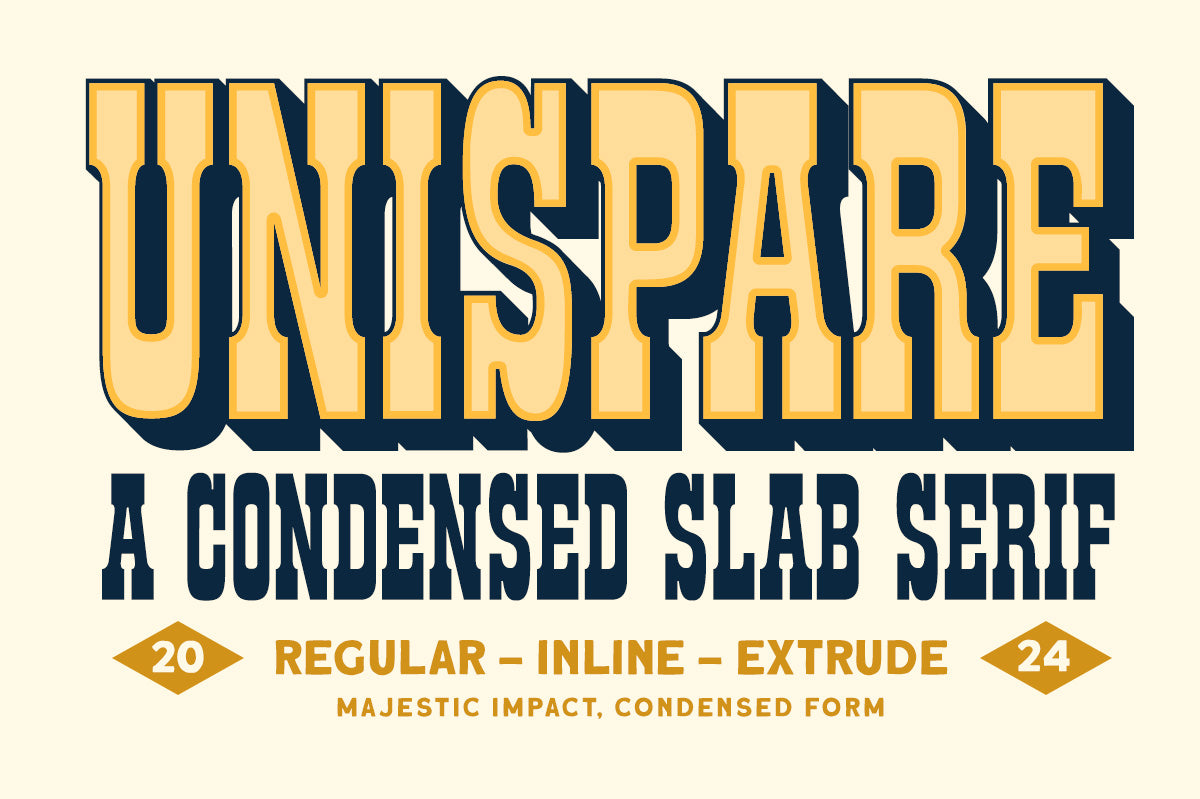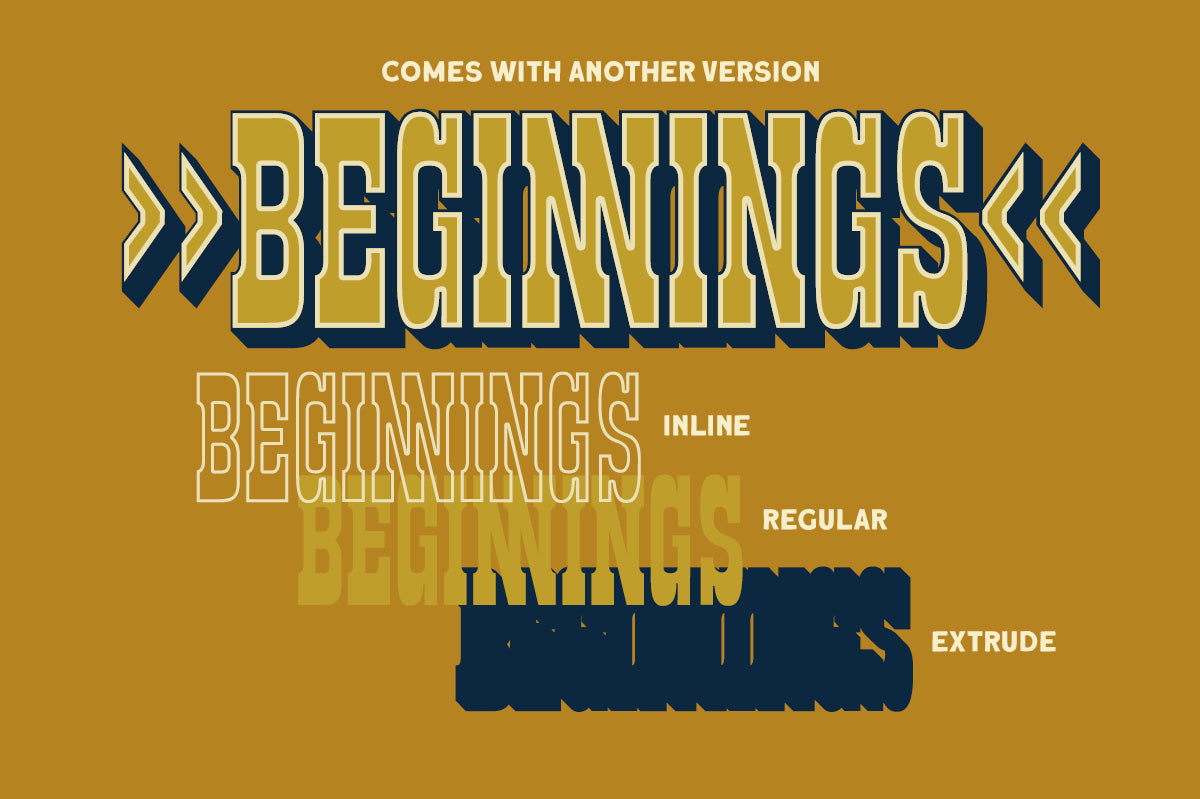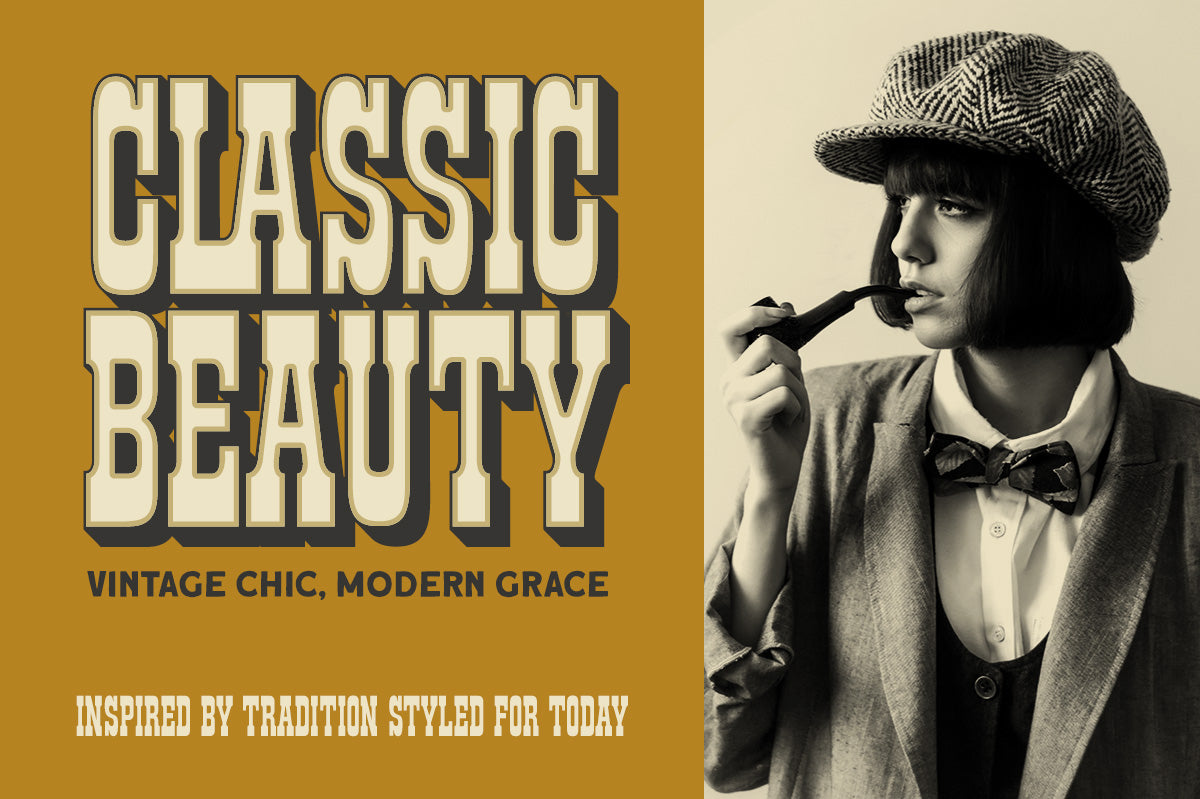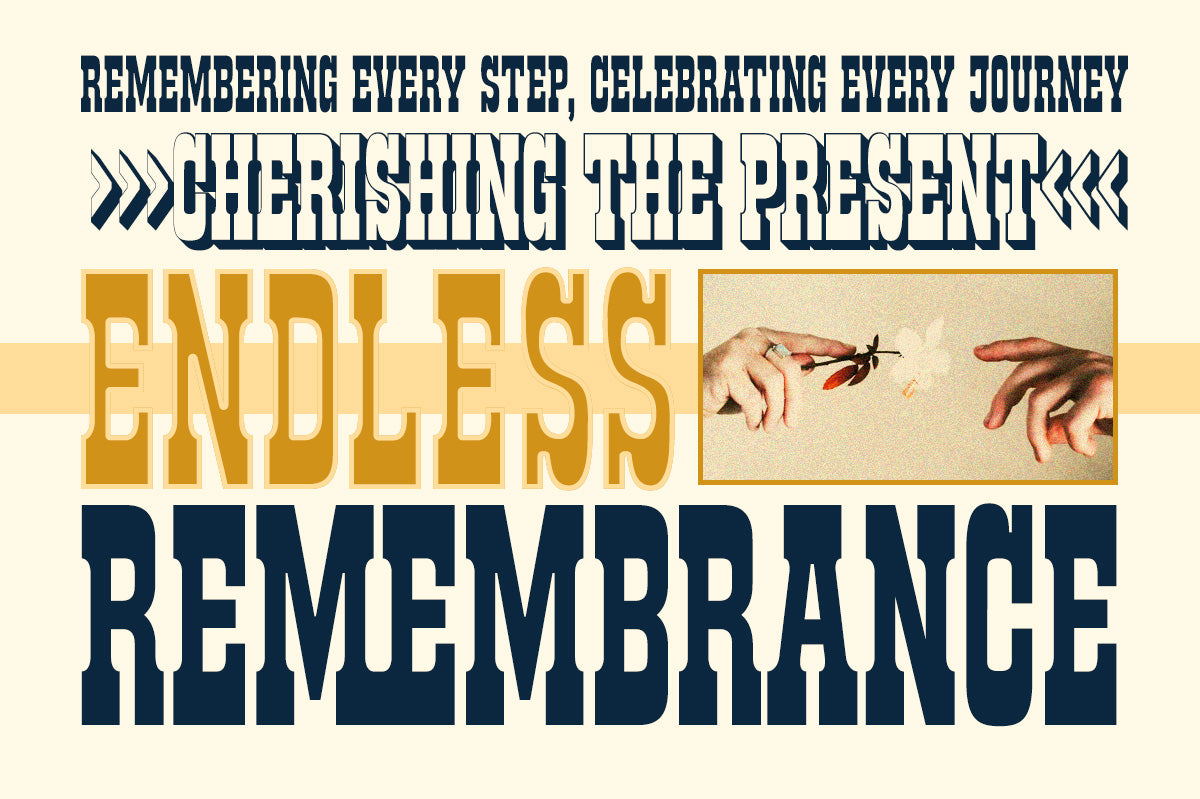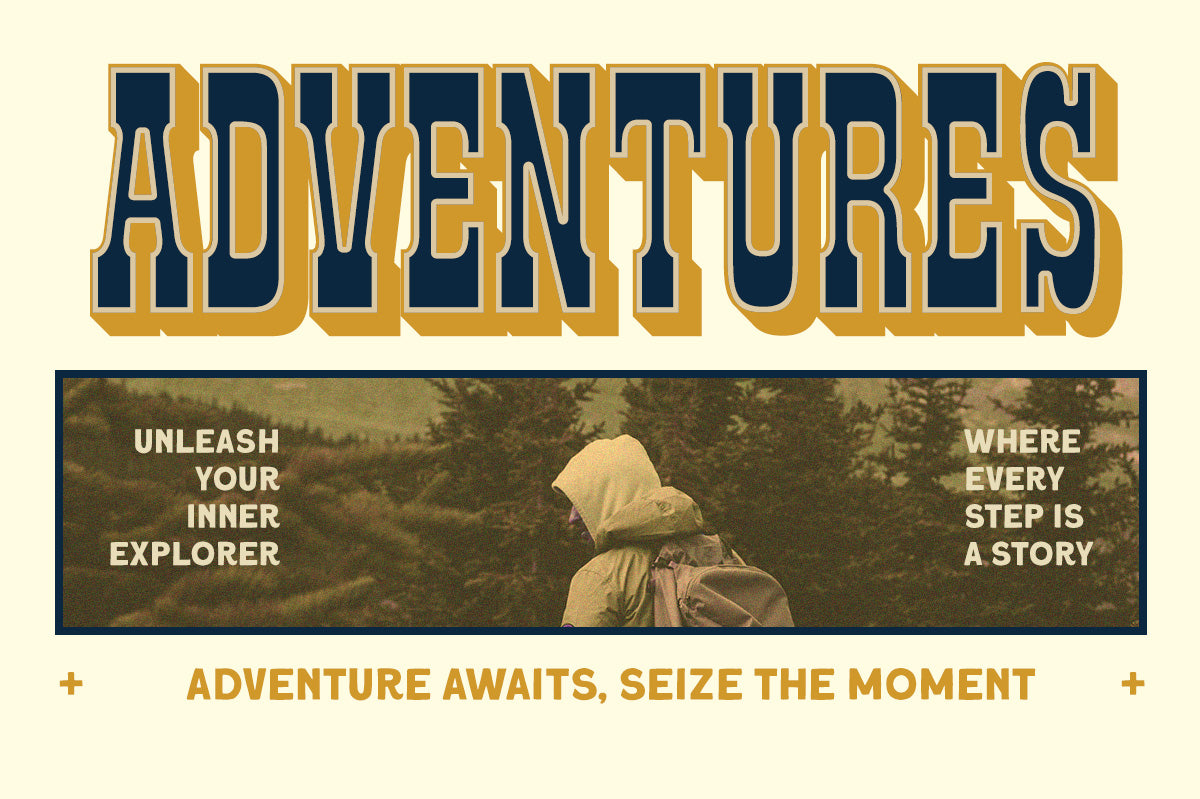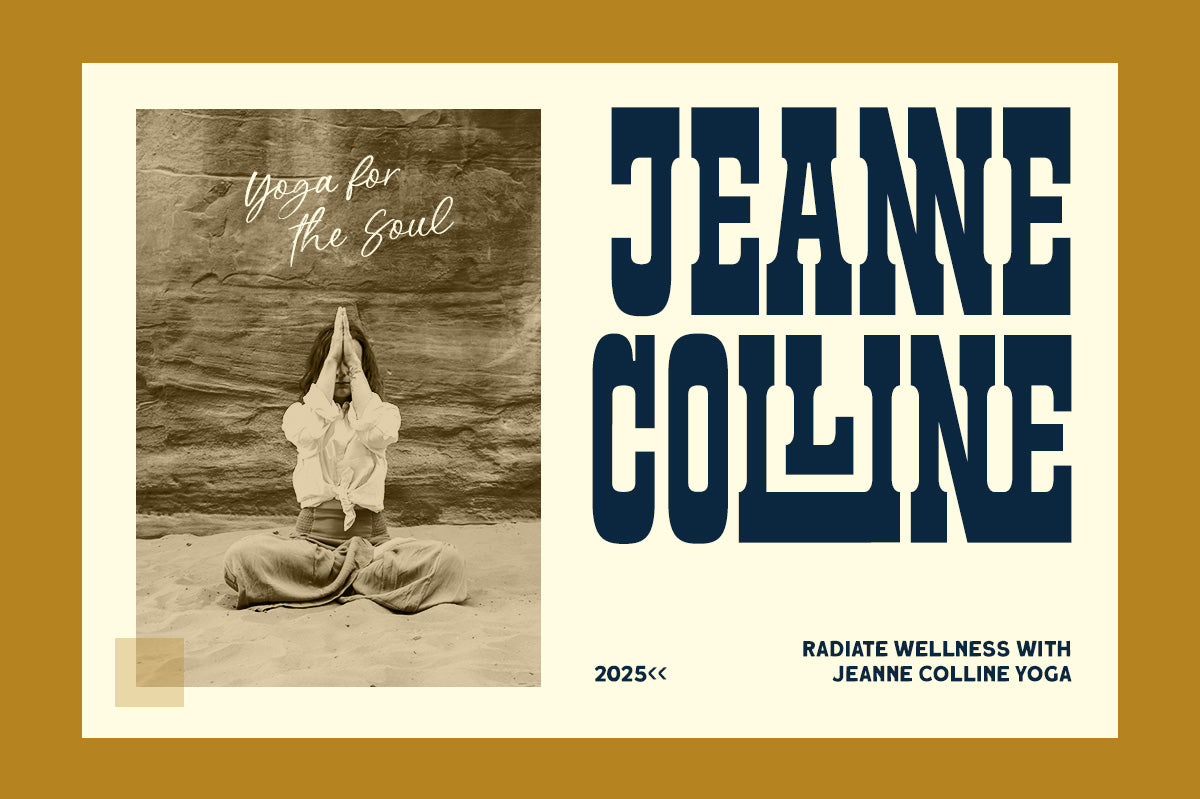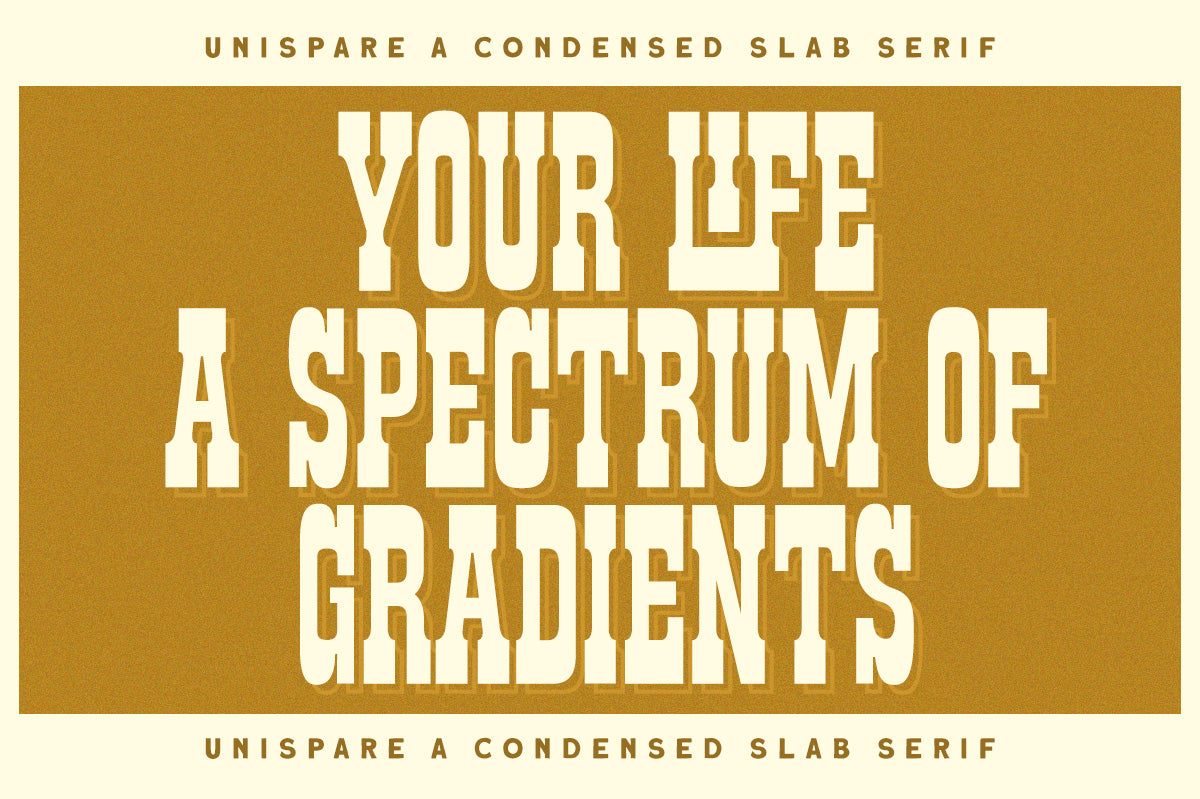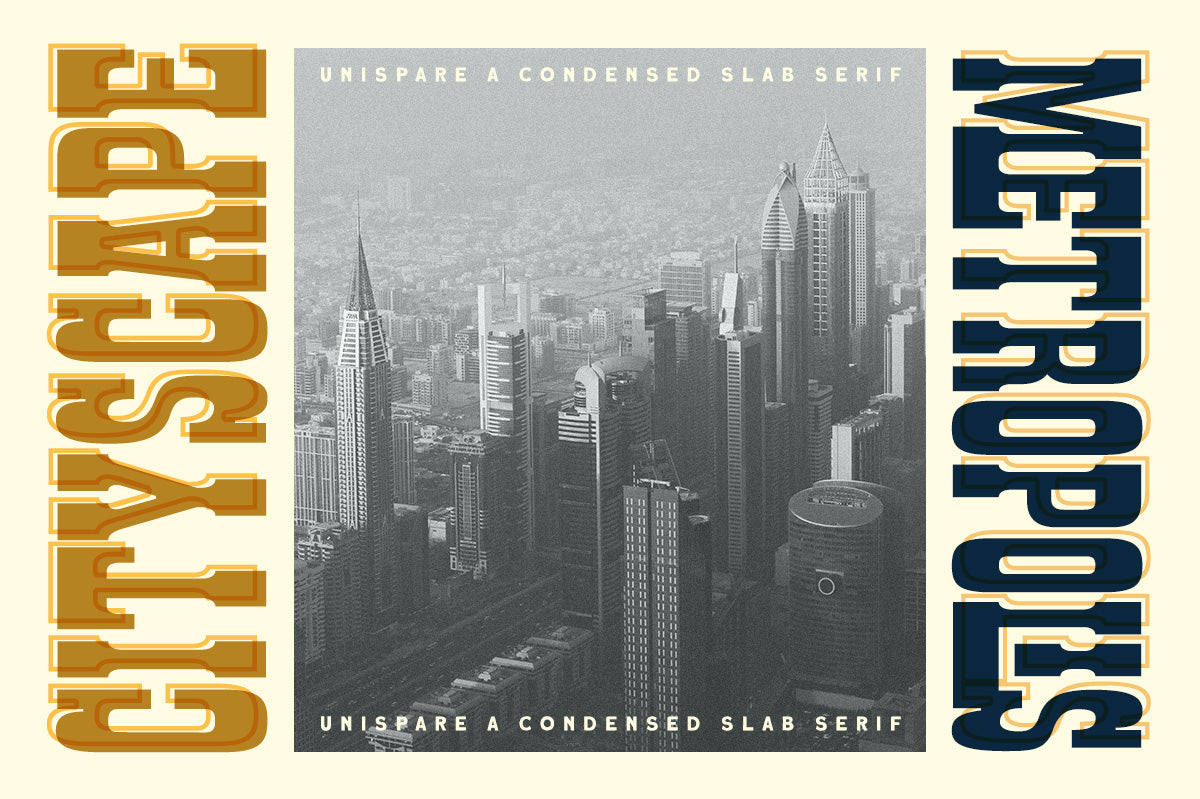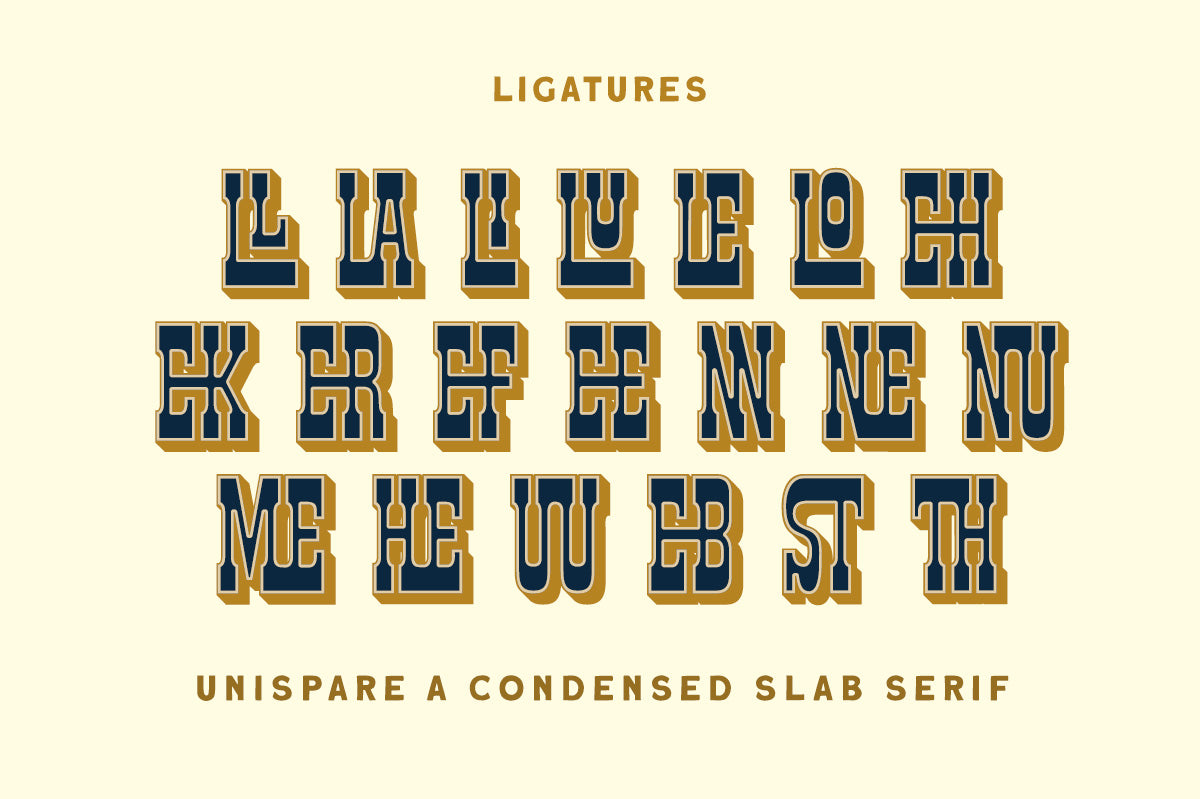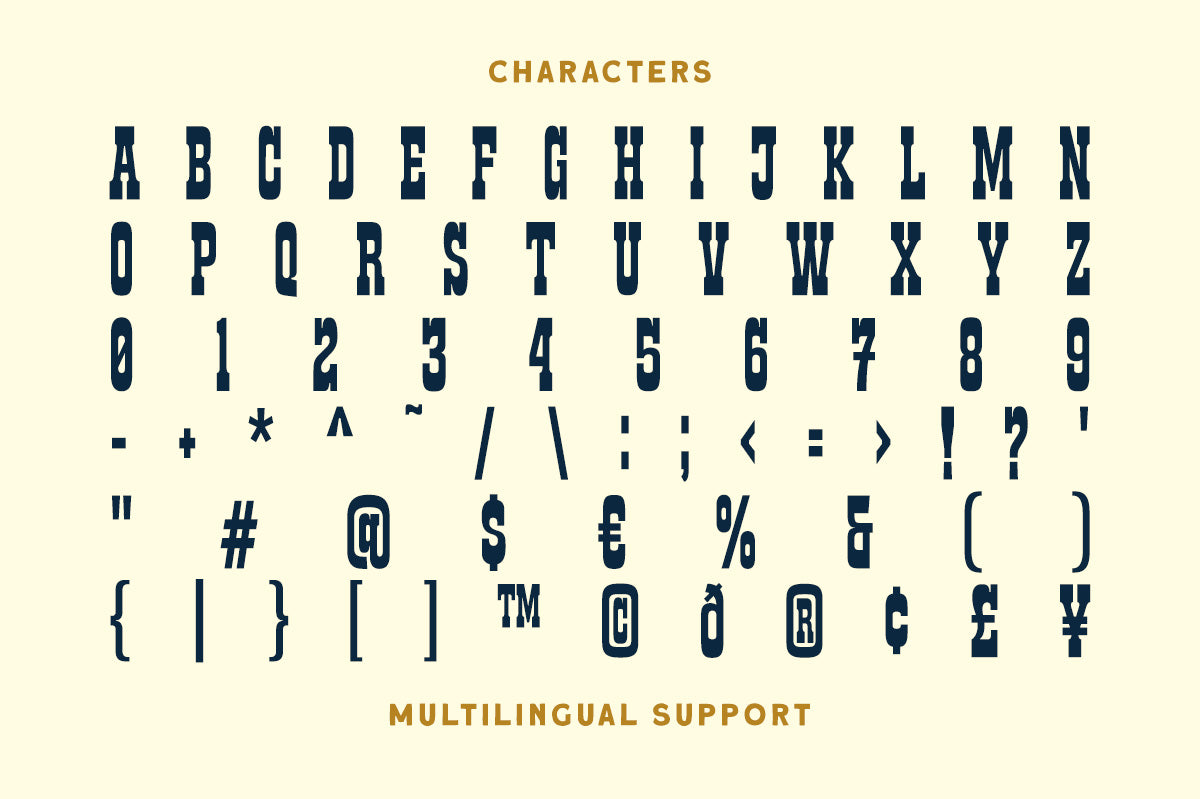
Unispare Condensed Slab Serif
Unispare is a condensed slab serif typeface with 3 styles, regular, inline and extrude. Perfectly made to be applied especially in logo, headline, signage and the other various formal forms such as invitations, labels, logos, magazines, books, greeting / wedding cards, packaging, fashion, make up, stationery, novels, labels or any type of advertising purpose.
Uppercase & lowercase
Numbers and punctuation
Alternates & Ligatures
Multilingual